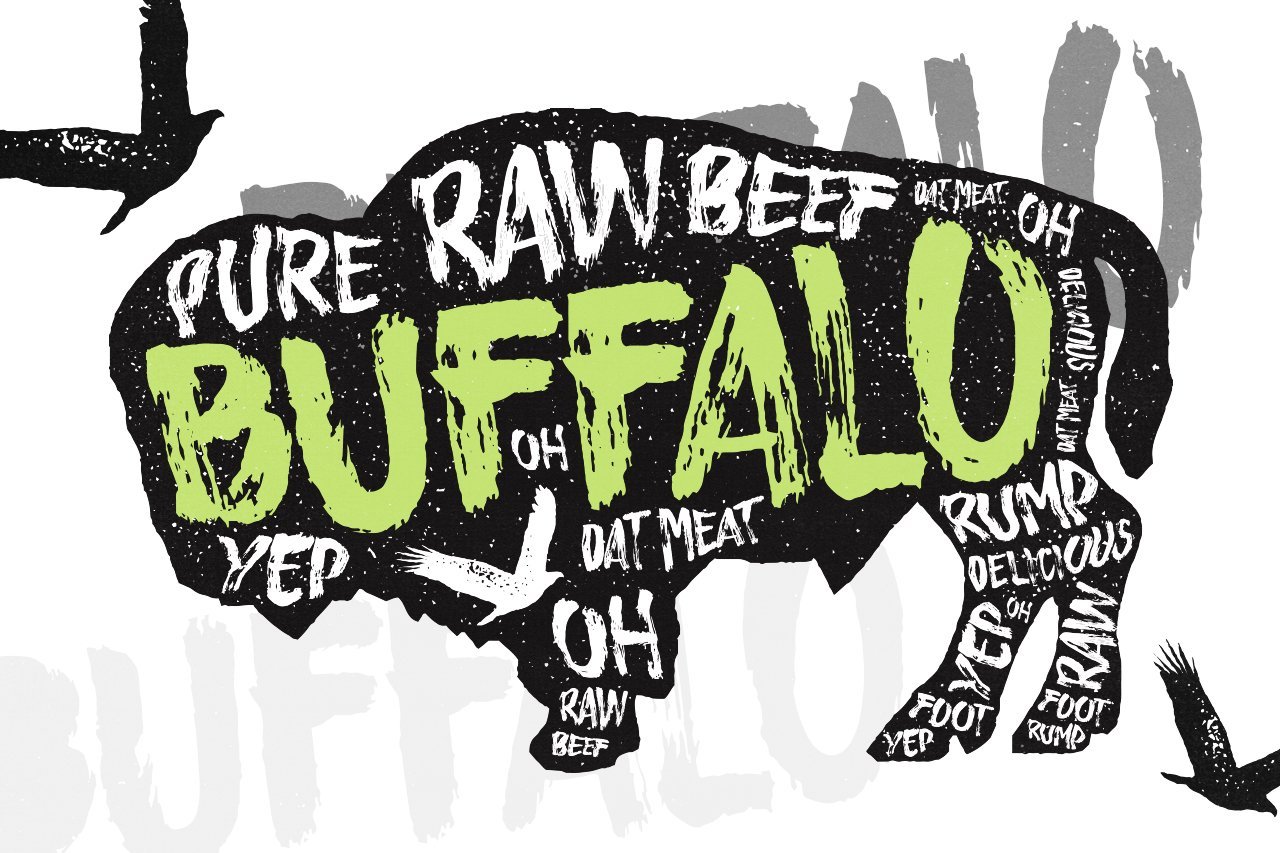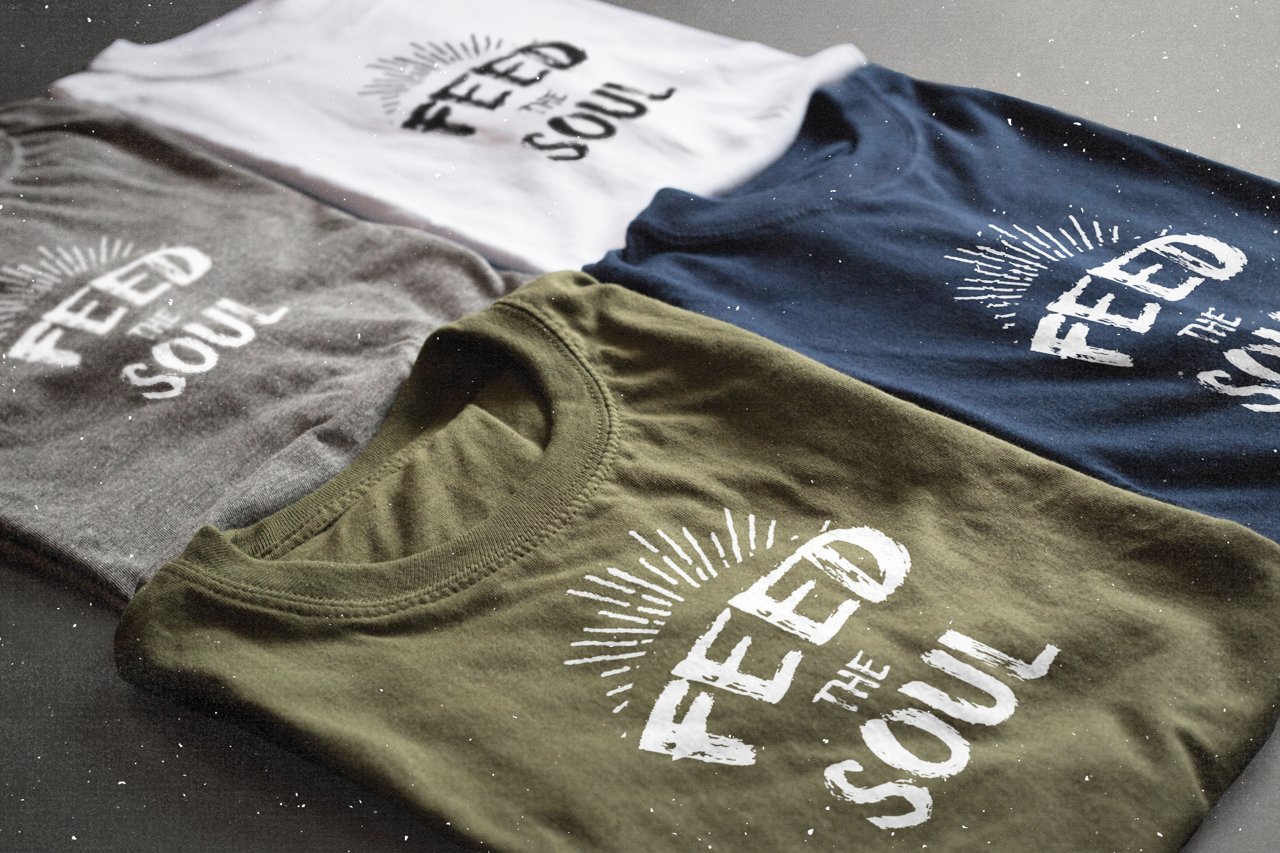
Introducing Buffalo, the Handsketched Typeface by Layerform Design Co!
Buffalo – Handsketched Typeface
Introducing Buffalo – The Beefy Handdrawn Typeface!
Buffalo is a handsketched typeface that has been handmade, or handbrushed rather! The brush strokes can be seen in the detail of the Glyphs, and it has a very gritty & charismatic feel!